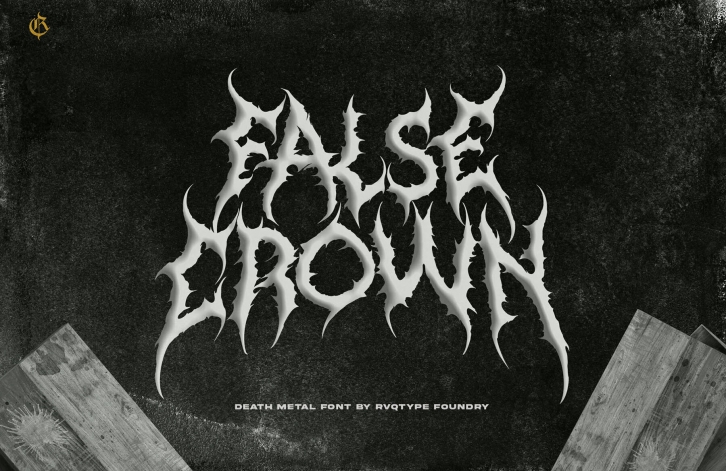
This new death metal font from Rvq is perfect for all your heavy and dark creative needs! From logos to album covers or anything in between, this is the typeface for your next graphic design project.